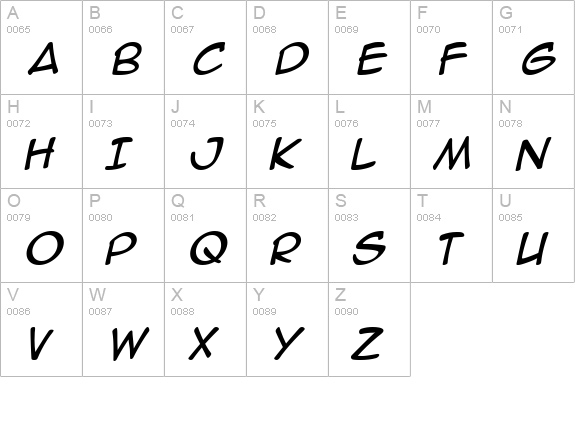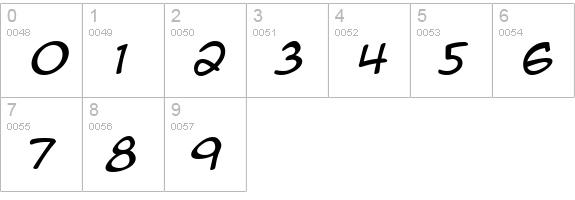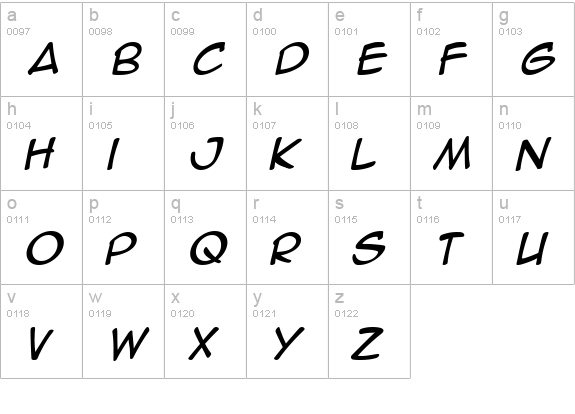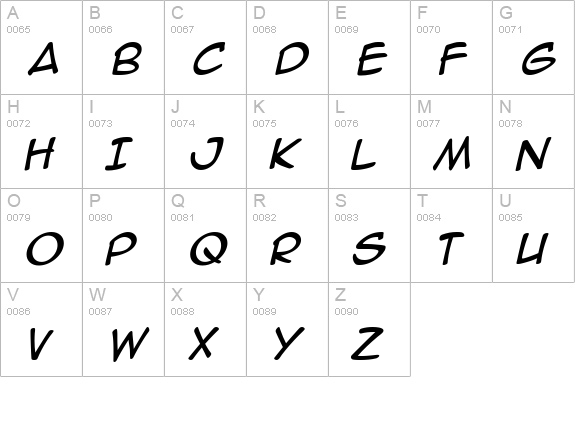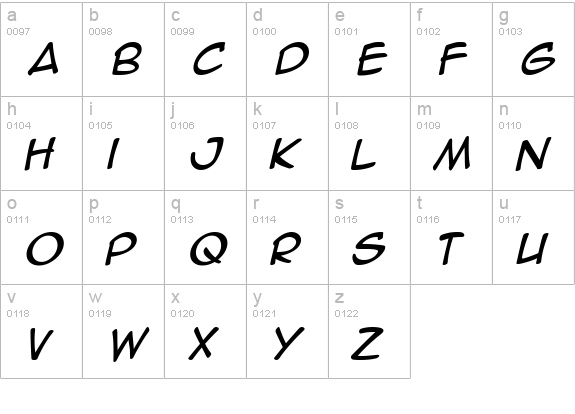
Anime Ace Italic is a distinctive, italic variant in the Anime typeface family \xE2\x80\x94 well suited to design and typography projects.
Anime Ace Italic is a stylish and dynamic font that captures the essence of Japanese anime in its design. With its slanted and bold style, this font exudes energy and excitement, making it perfect for use in titles, headings, and other attention-grabbing text. The italicized characters add a touch of flair and drama to any project, giving it a unique and eye-catching look. The best part about Anime Ace Italic font is that it is completely free to download at FontsMarket.com. This means that you can easily access this fantastic font and use it in your creative endeavors without any cost. Whether you're a graphic designer, animator, or just a fan of anime-inspired aesthetics, Anime Ace Italic font is sure to add a touch of fun and personality to your projects. Download it today and elevate your designs with this exciting and dynamic font!